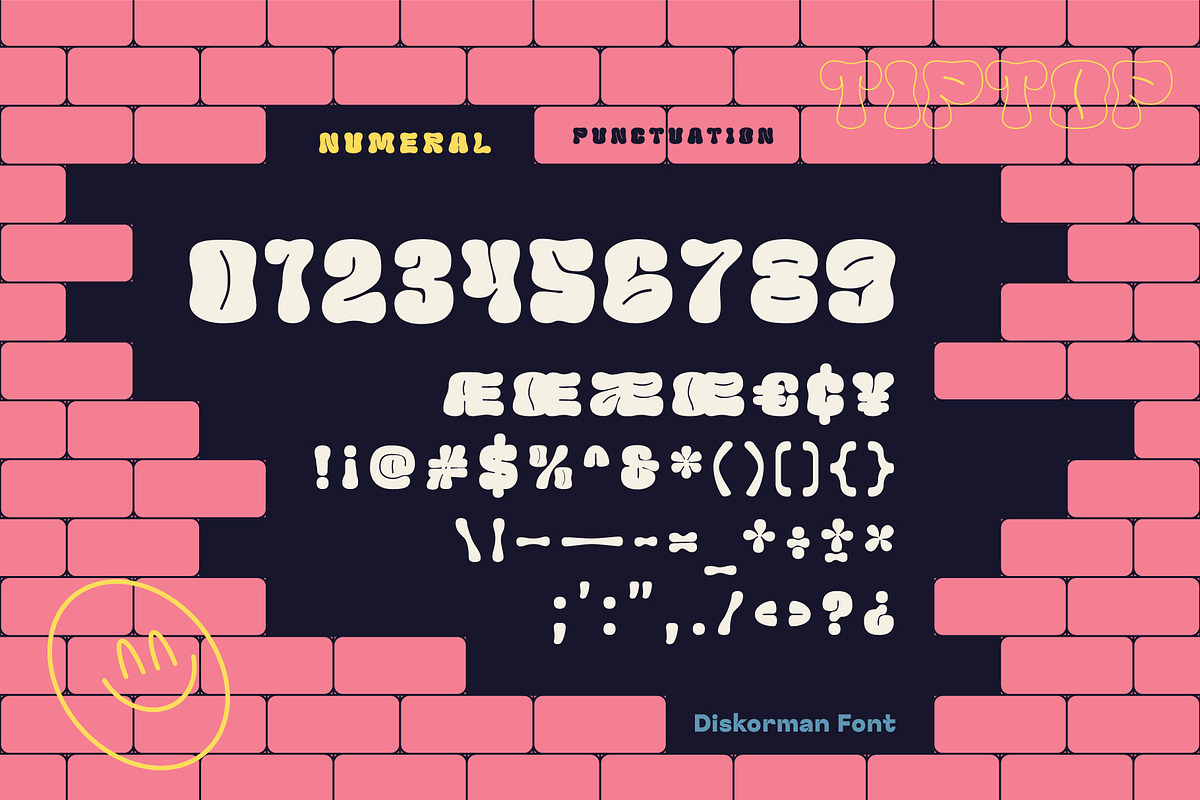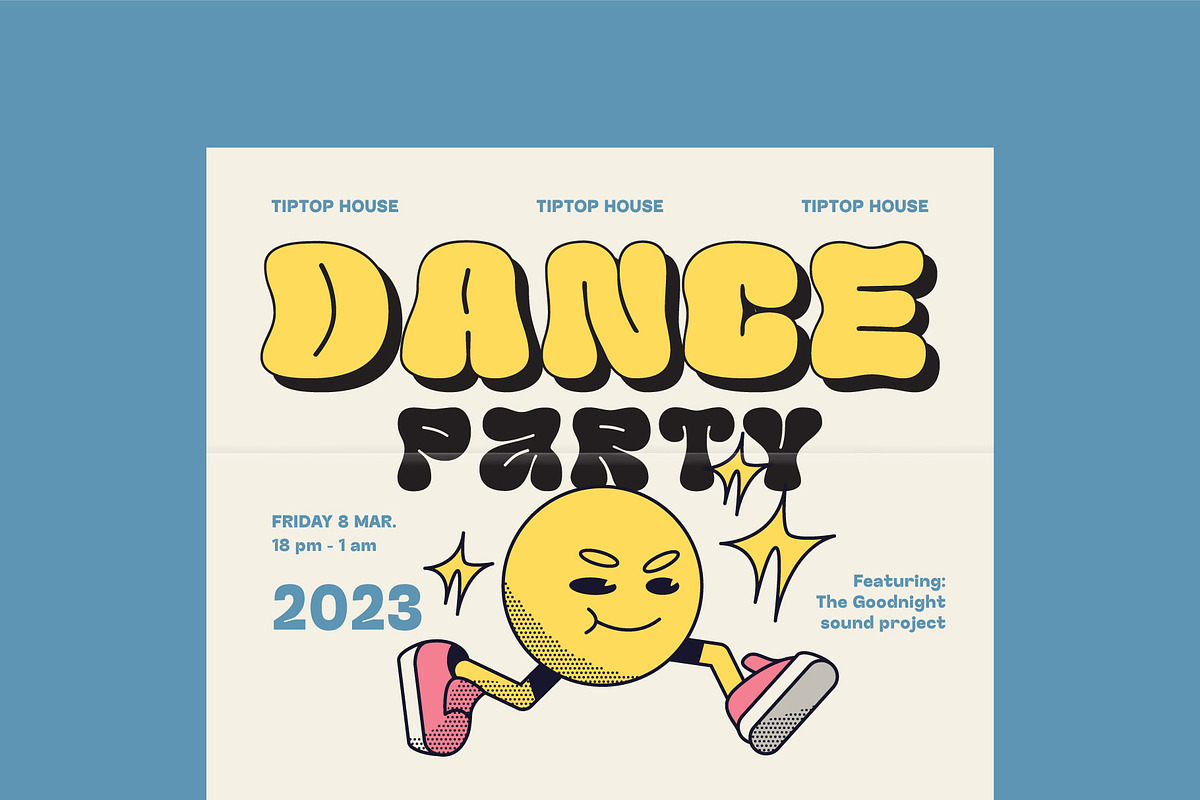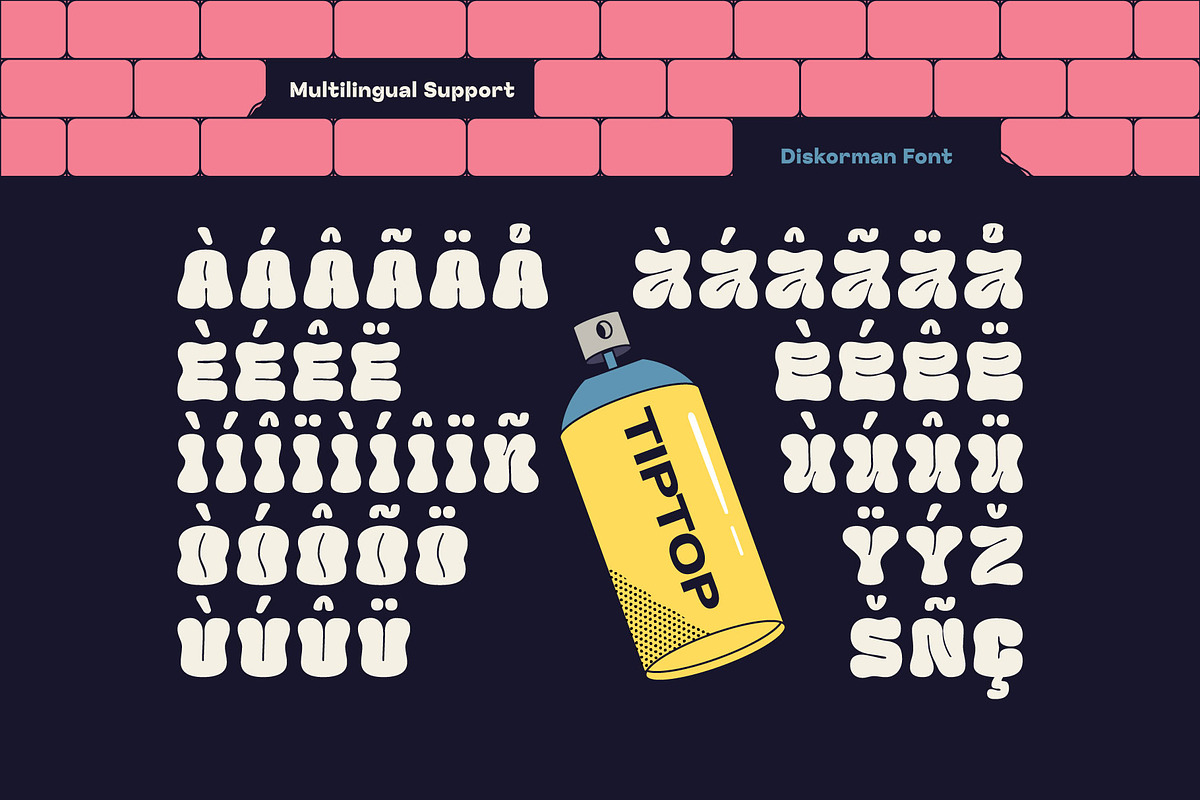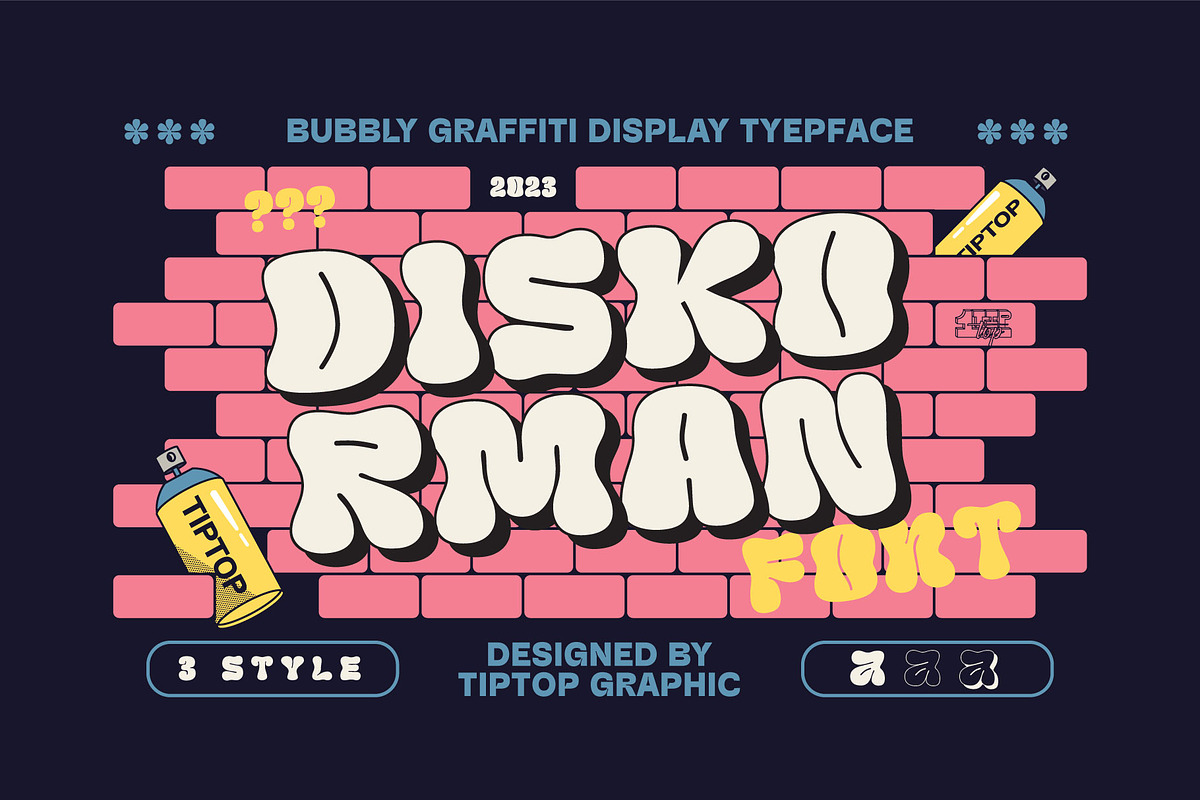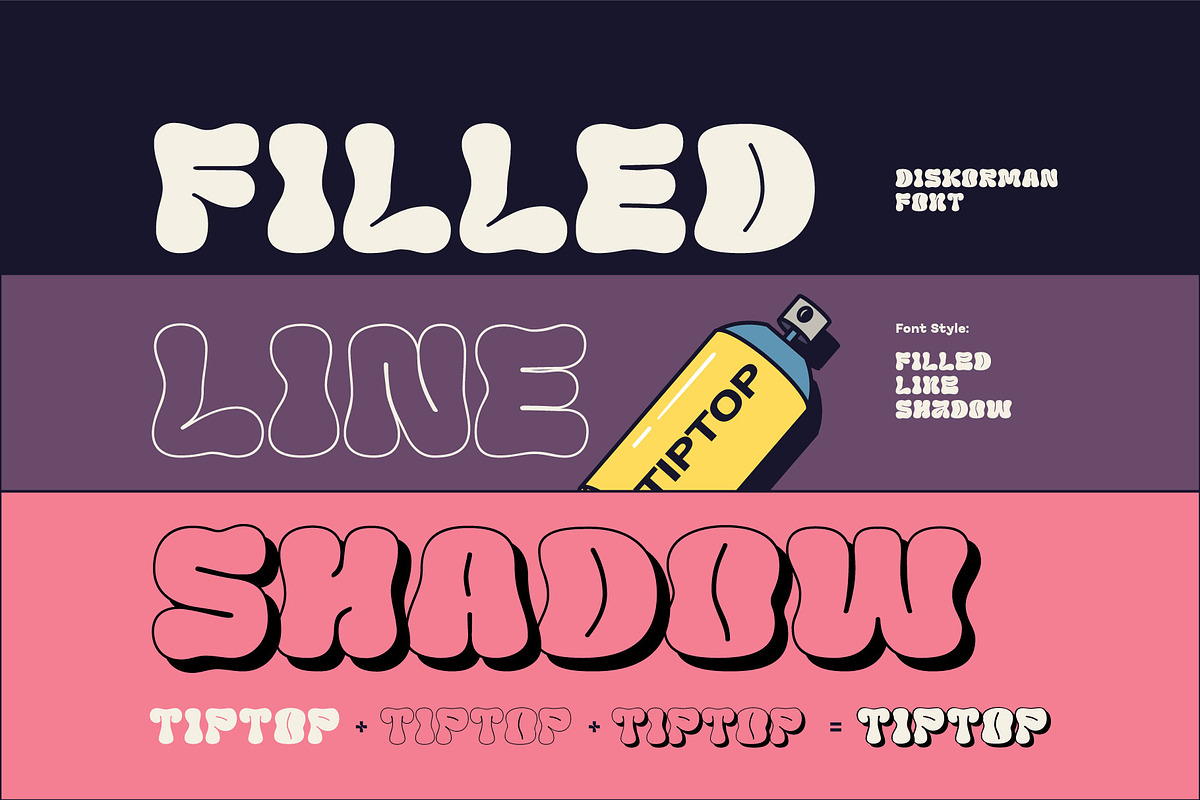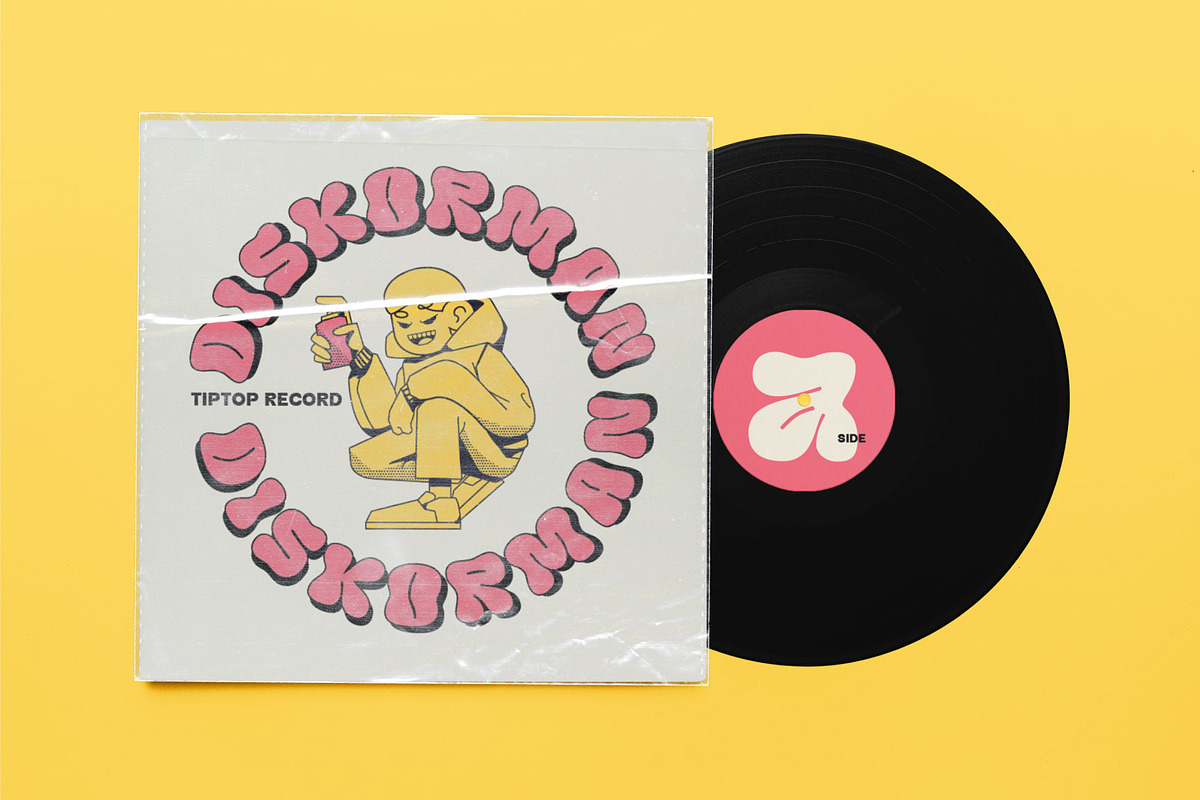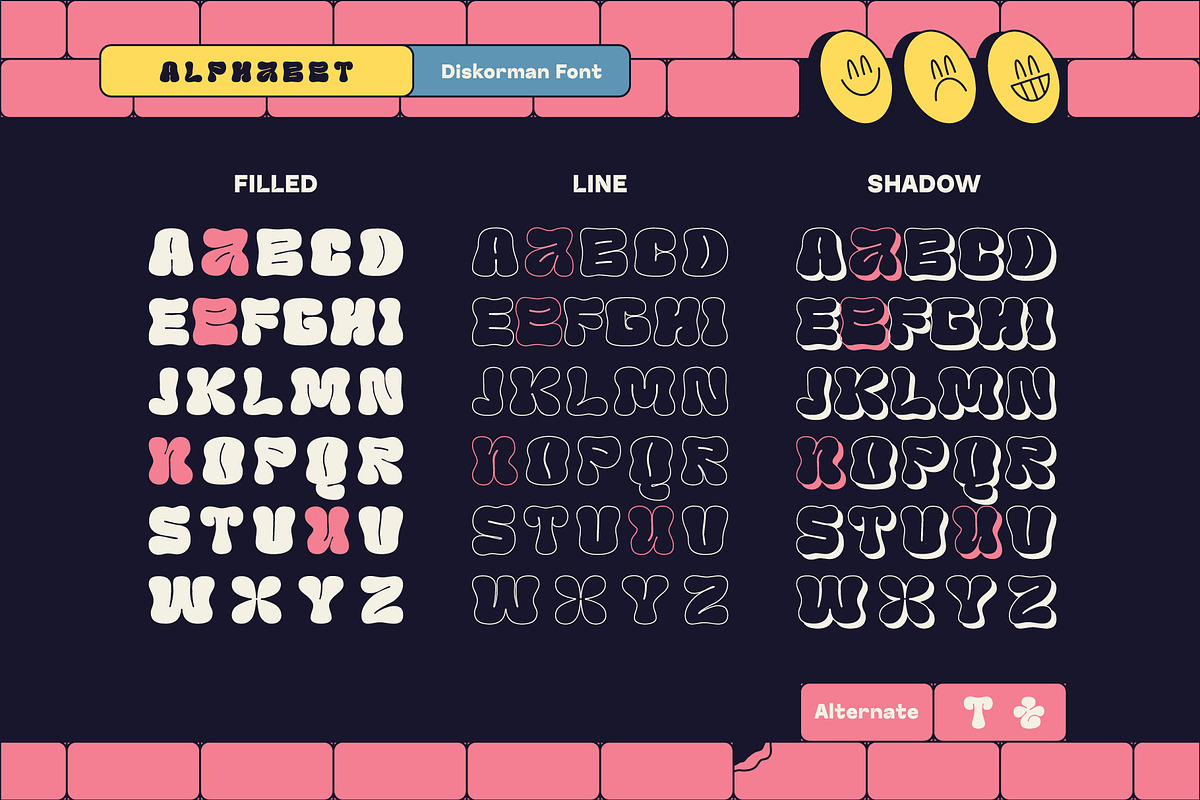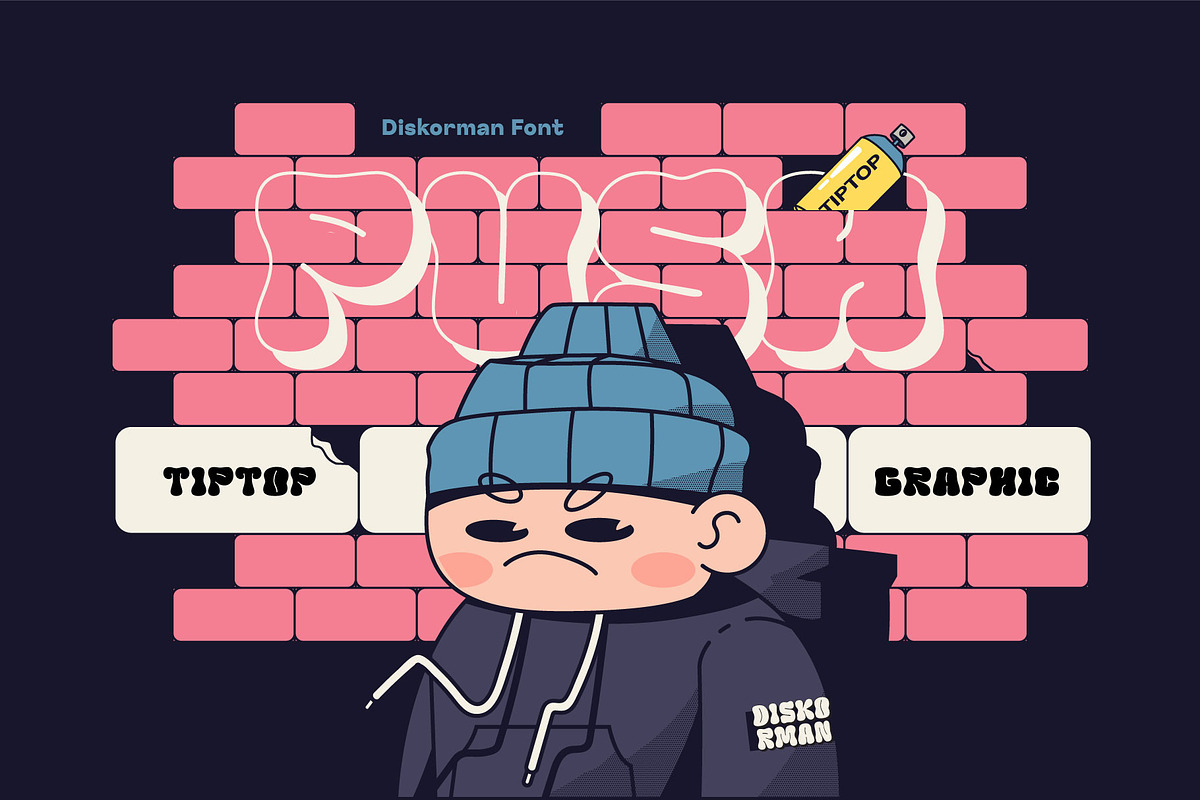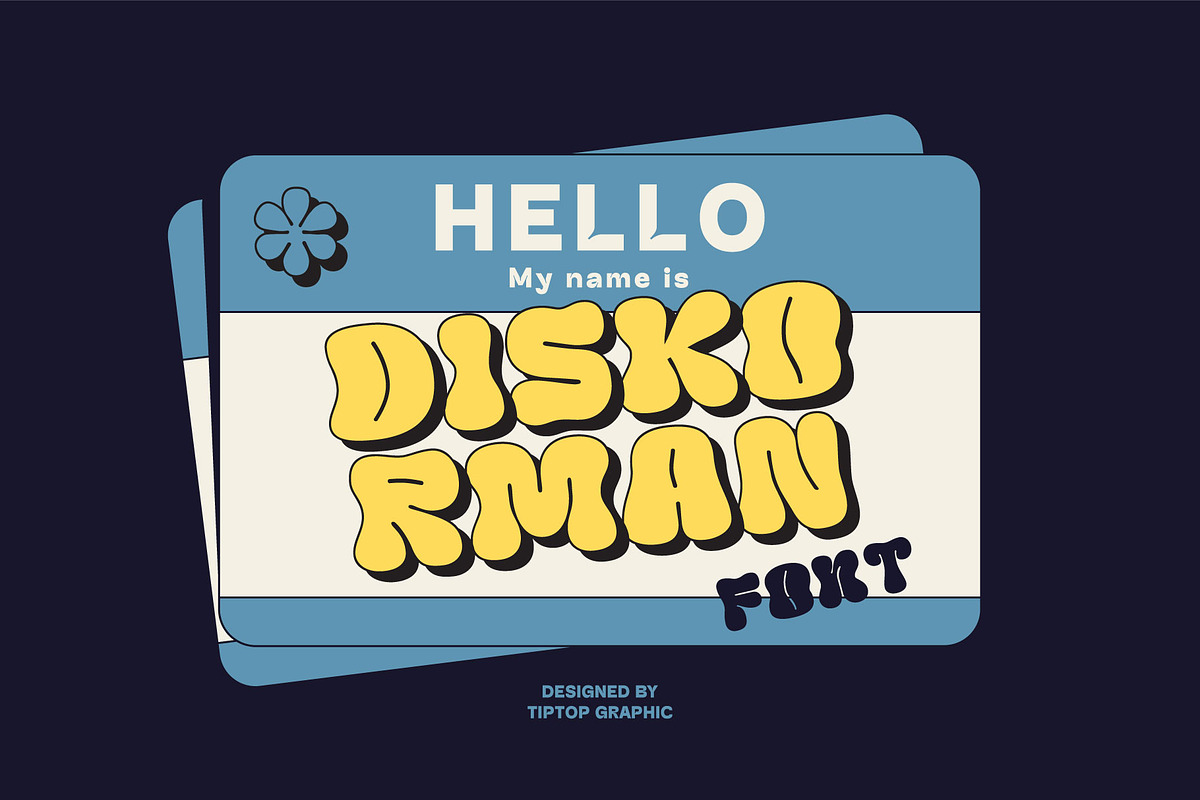
Diskorman – Bubbly Urban Graffiti
Diskorman | Bubbly Urban Graffiti Display Font
Diskorman is a captivating and dynamic urban graffiti display font that effortlessly blends the edginess of street art with a playful and bubbly aesthetic. This typeface exudes a sense of energetic spontaneity, making it a perfect choice for projects that demand a bold and contemporary look.